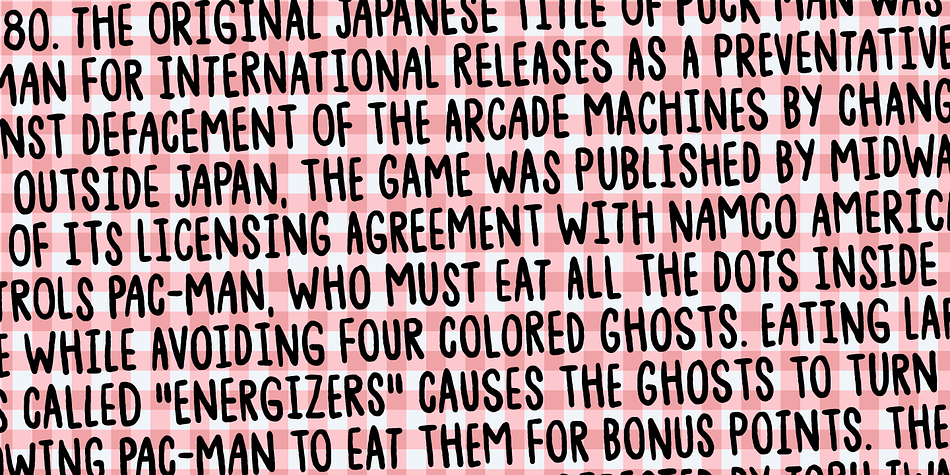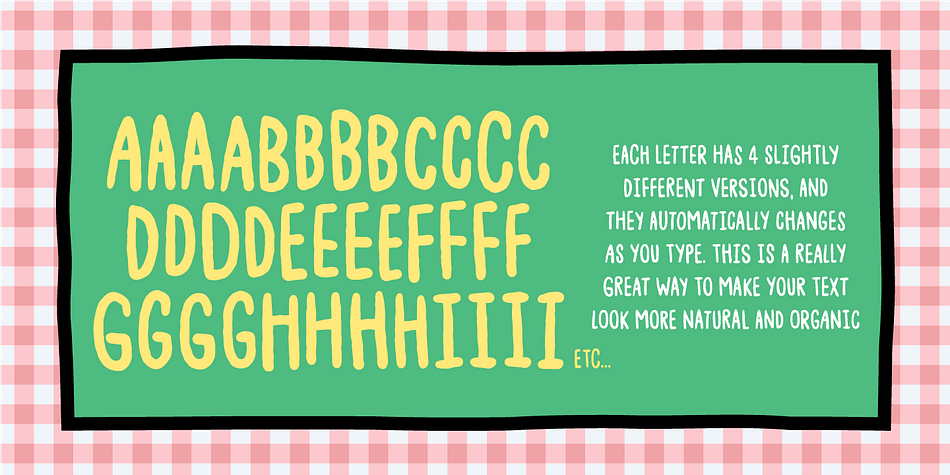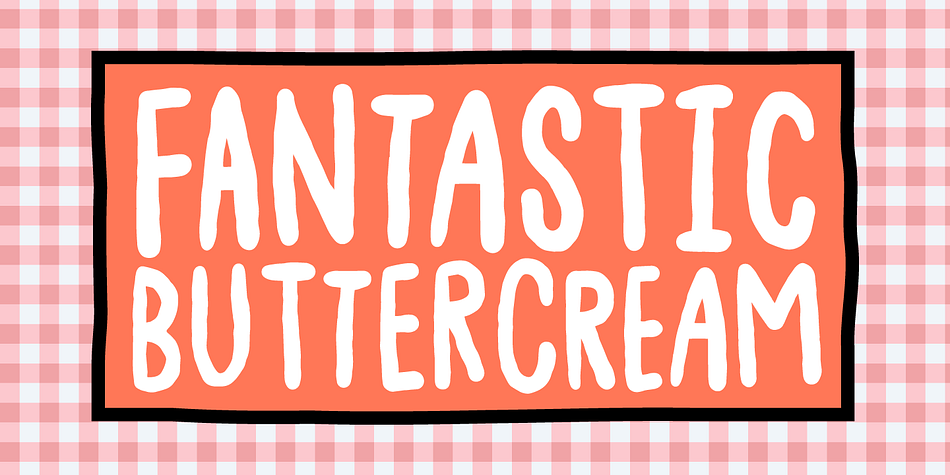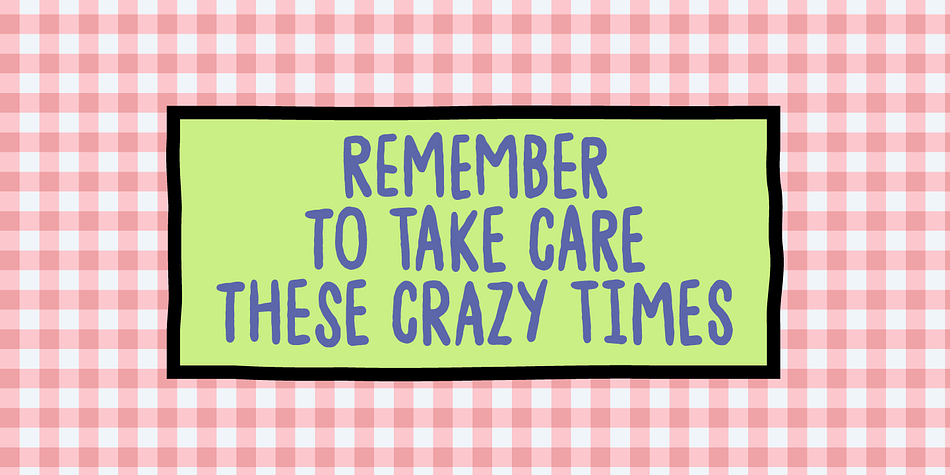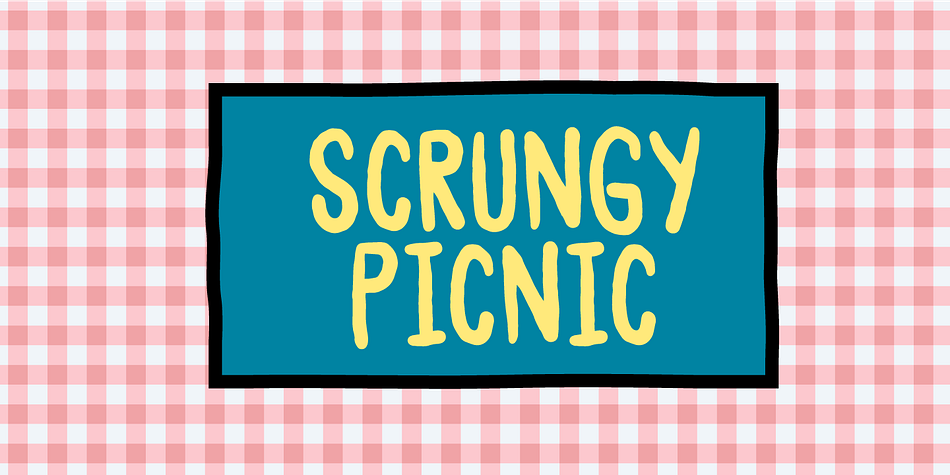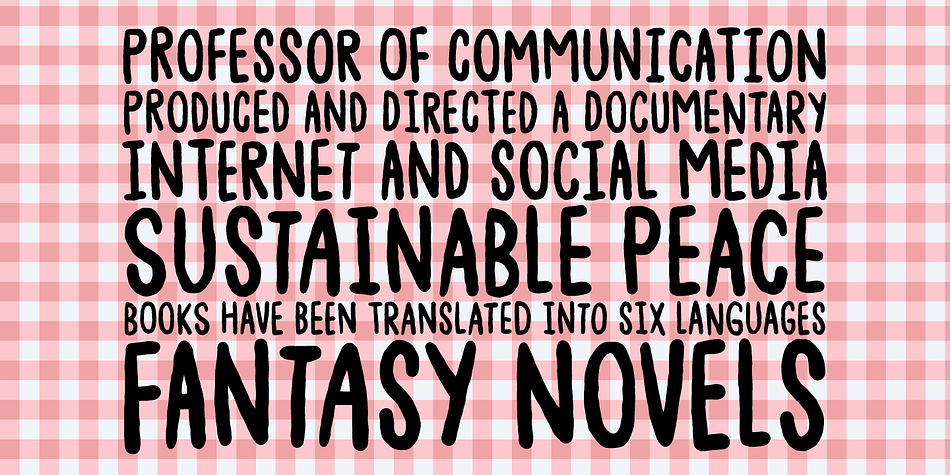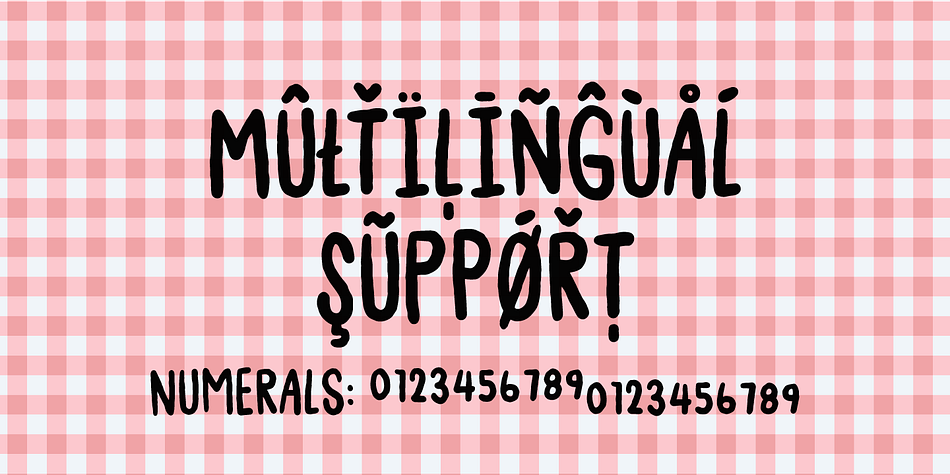
Designed by Jakob Fischer, Scrungy Picnic is a hand display and hand drawn font family. This typeface has two styles and was published by Bogstav.
Scrungy Picnic is my handpainted all-purpose typeface with a fresh and legible feeling to it. With all-purpose, I feel that the shapes and organic feeling of each letter, suits designs such as a headline, massive text, toys for kids, candy, posters, invitations, signs…well, the list goes on and on!
I’ve added 4 different versions of each letter, and they automatically cycle as you type - or you can pick the individual letters from the glyph menu!